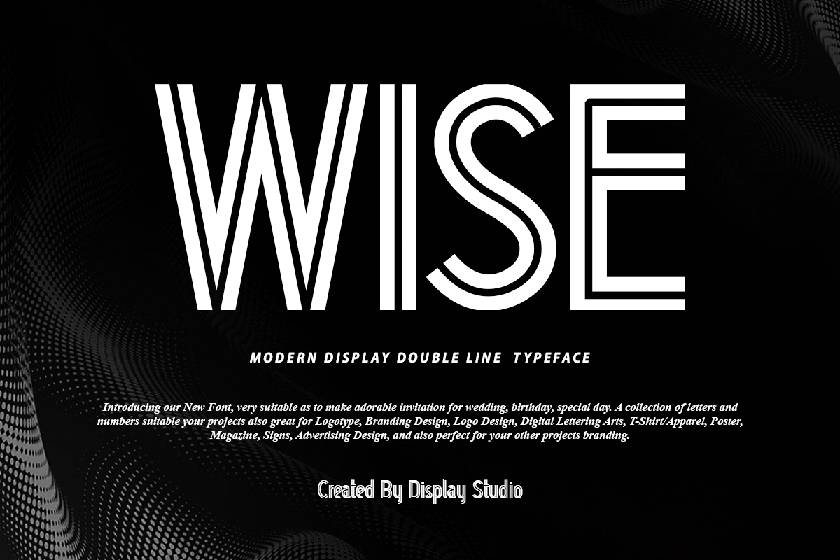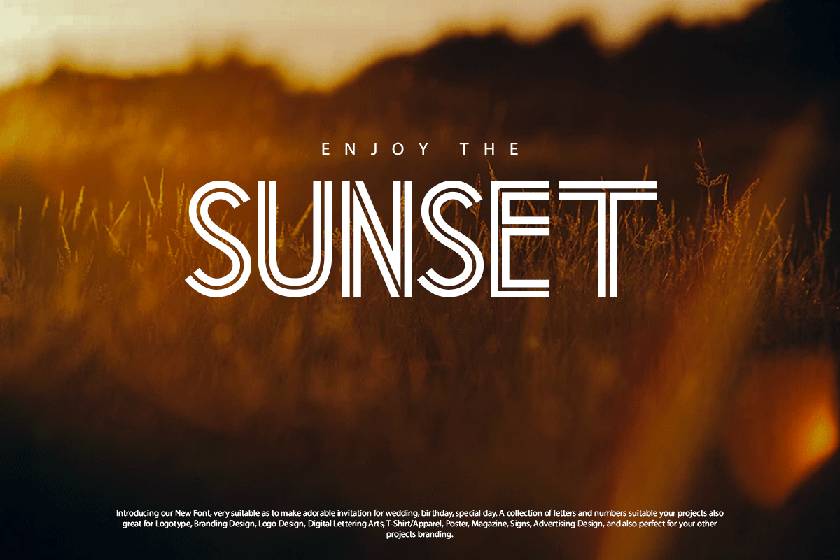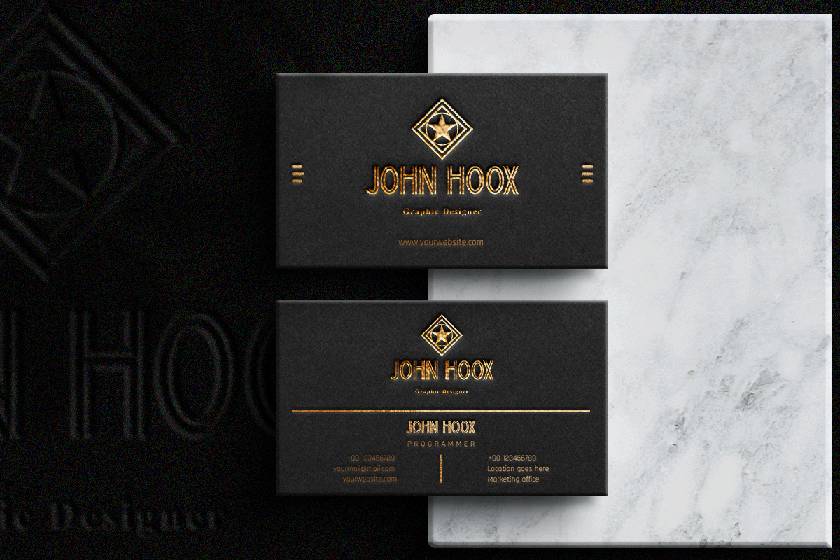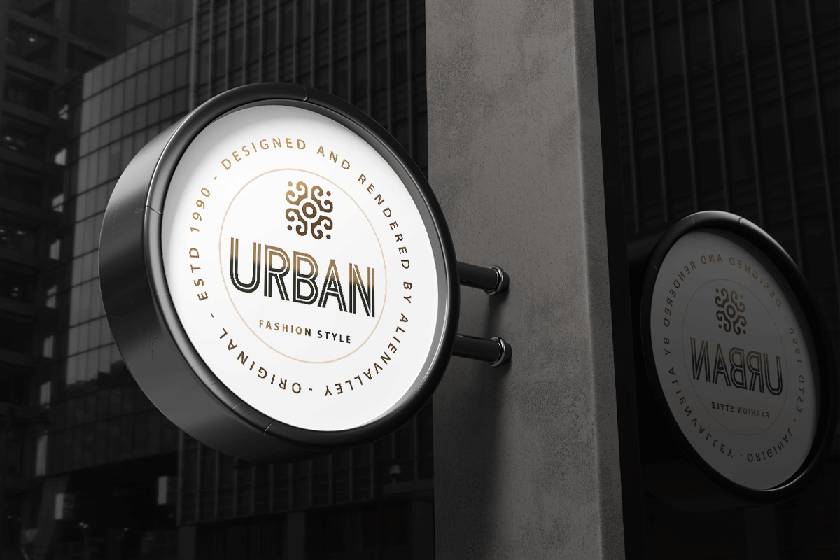
Wise Font is a modern, condensed sans serif typeface with an elegant, geometric double-line design that creates a striking visual effect. Its clean, narrow letterforms combined with unique details like the stylized Q tail and double-story g give it a sophisticated yet contemporary vibe, perfect for headlines, logos, and creative branding. This eye-catching font works well where a bold, decorative style is needed to convey professionalism with a touch of artistic flair.
Wise Font